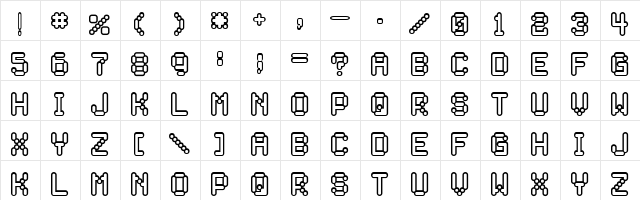
Rocketman Regular
Design Context for Rocketman Typeface
Rocketman is a composed and adaptable typeface that performs quietly and consistently across a wide range of design contexts.